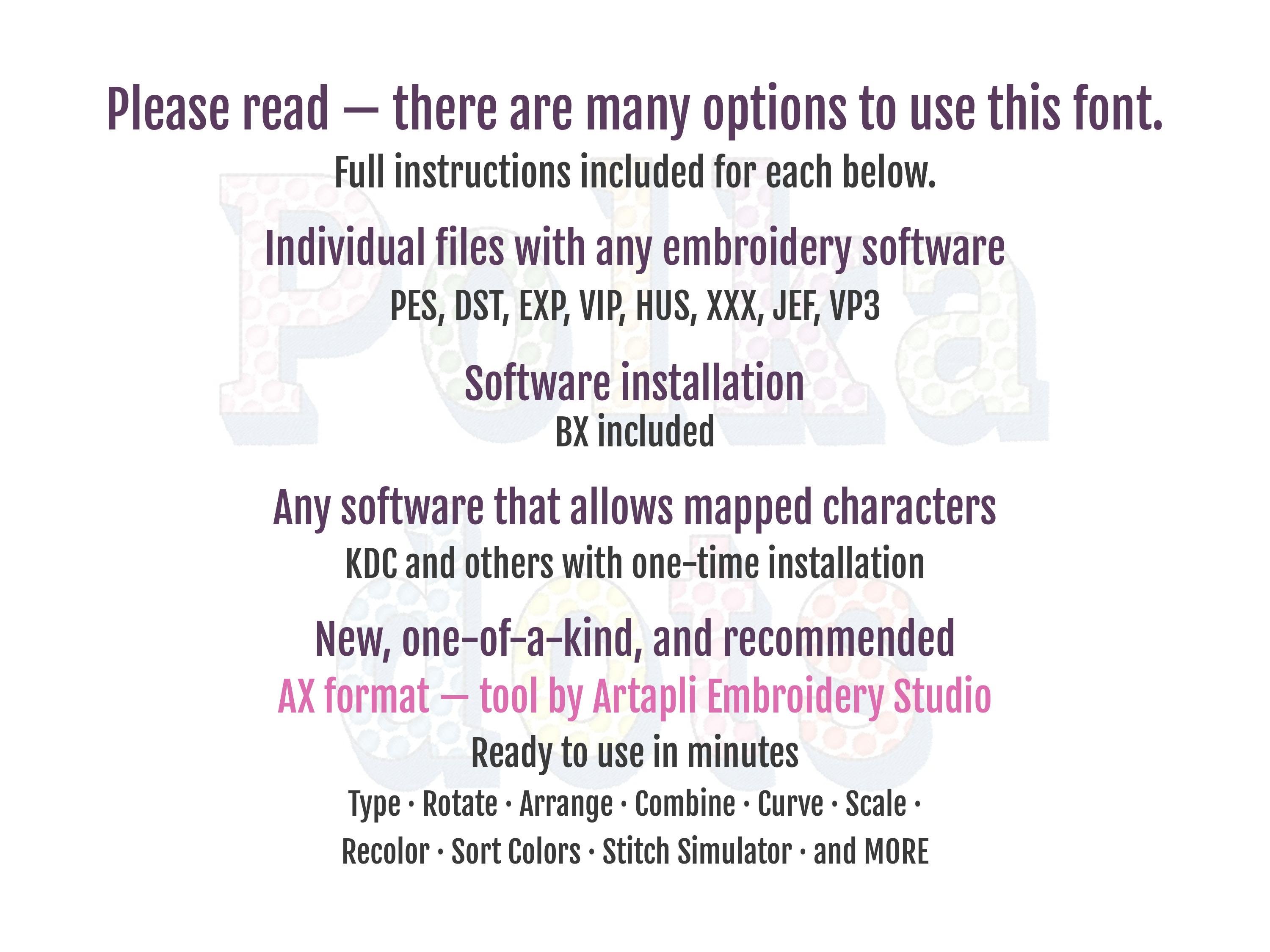
Polka Dot Shadow Font patterned Alphabet letters numbers punctuation Dotted Font machine embroidery designs shadowed monogram many sizes
The font is transparent and has stitched dots, a fill stitch shadow, and a bean stitch outline.
Whole alphabet uppercase and lowercase letters Aa-Zz, numbers 0-9, and punctuation.
love the polka dots and the shading on the letters. stitches well.